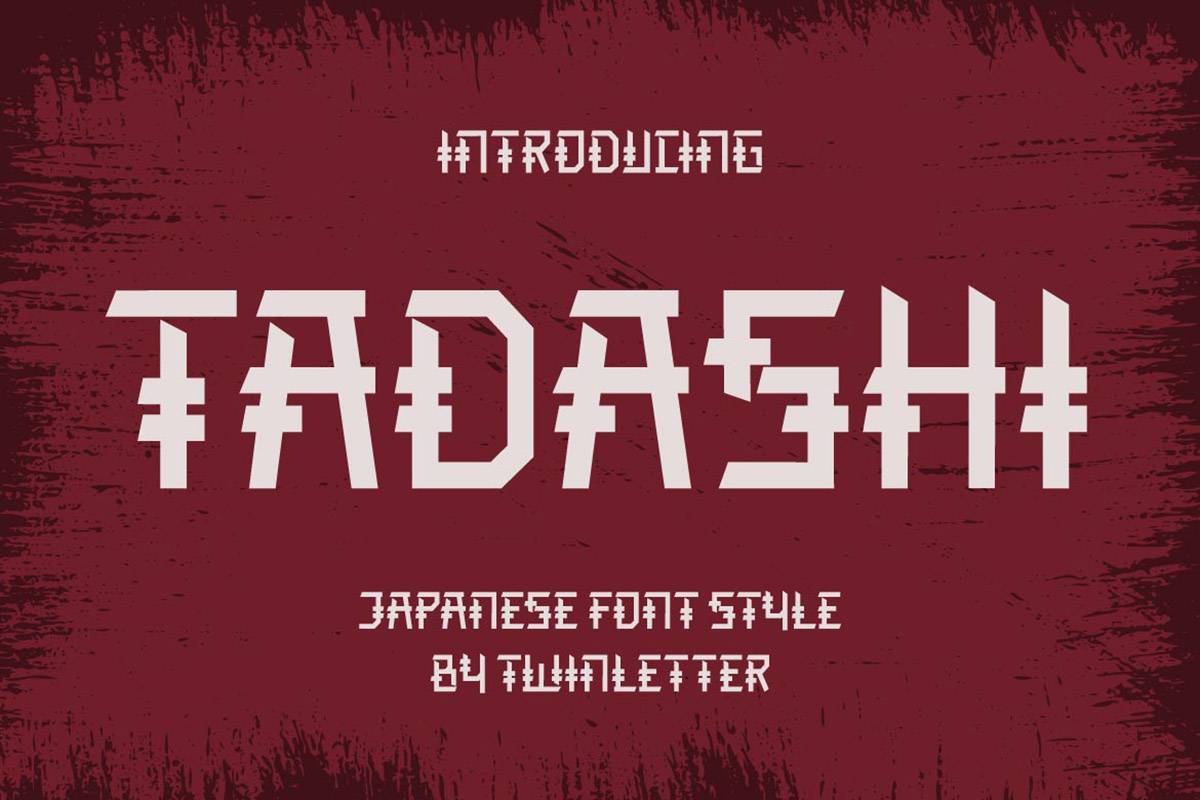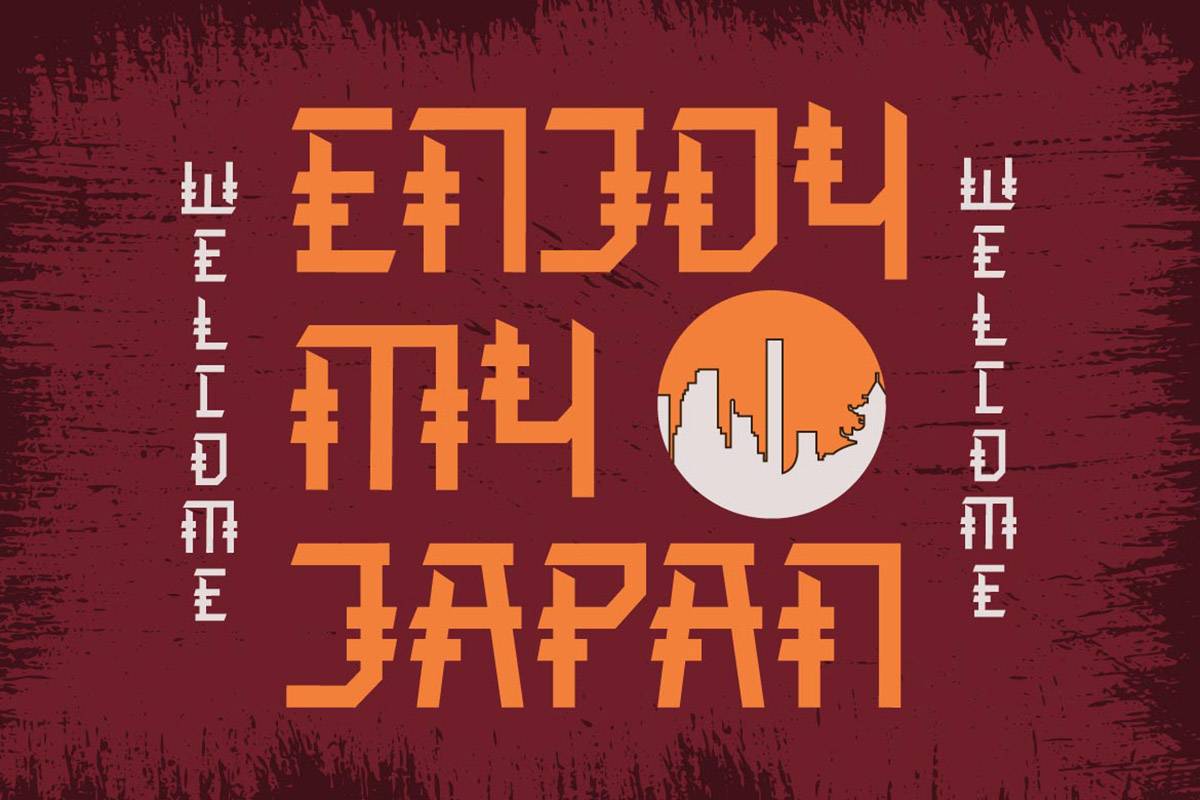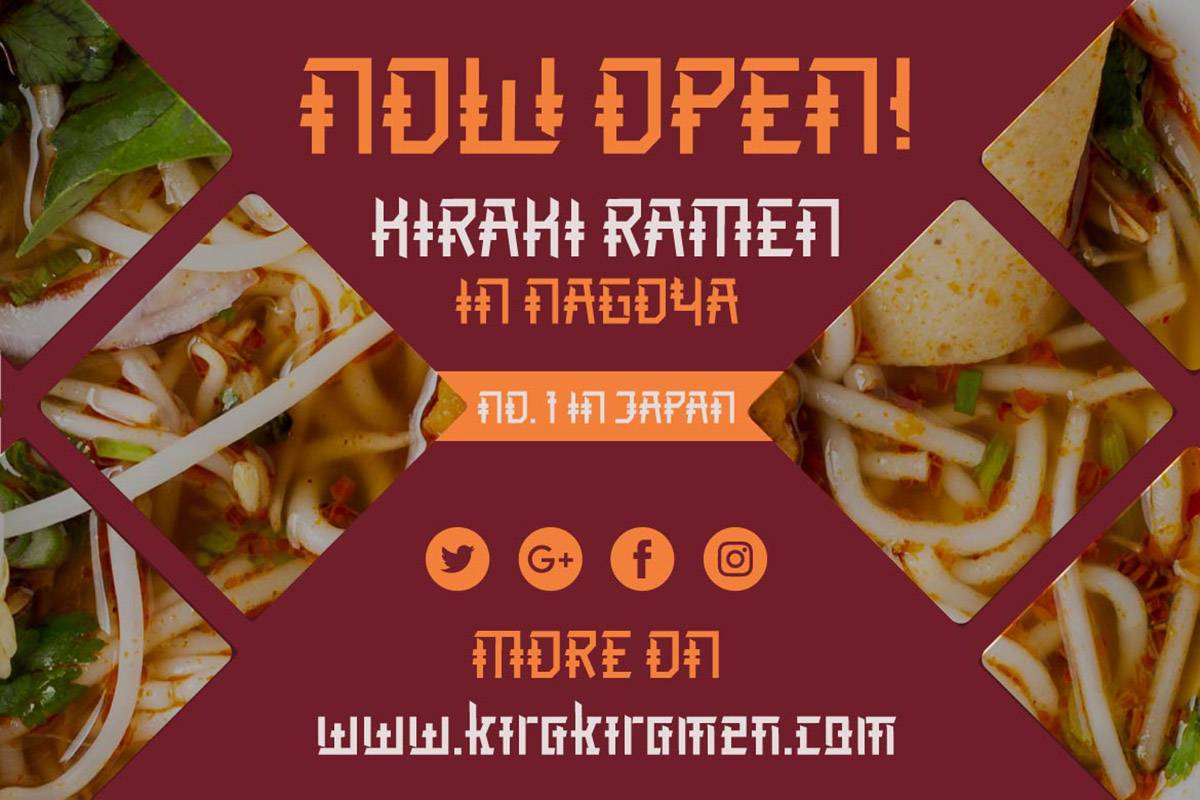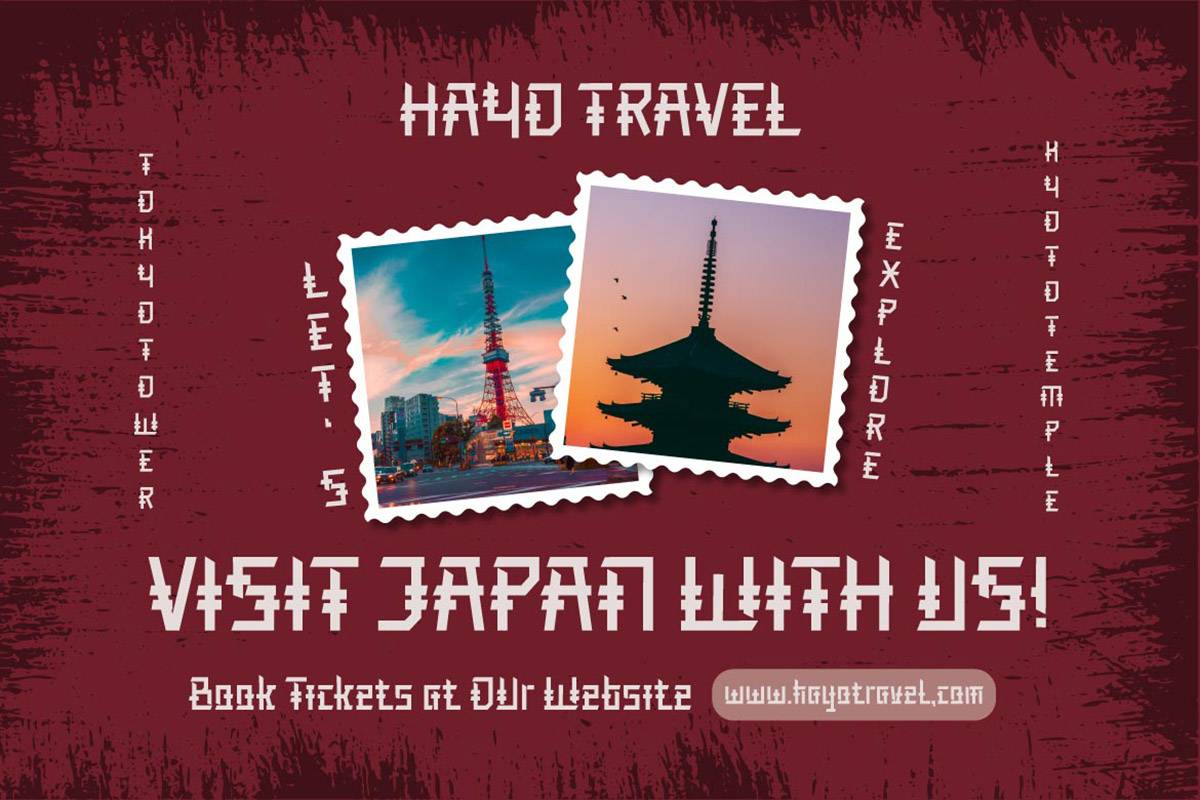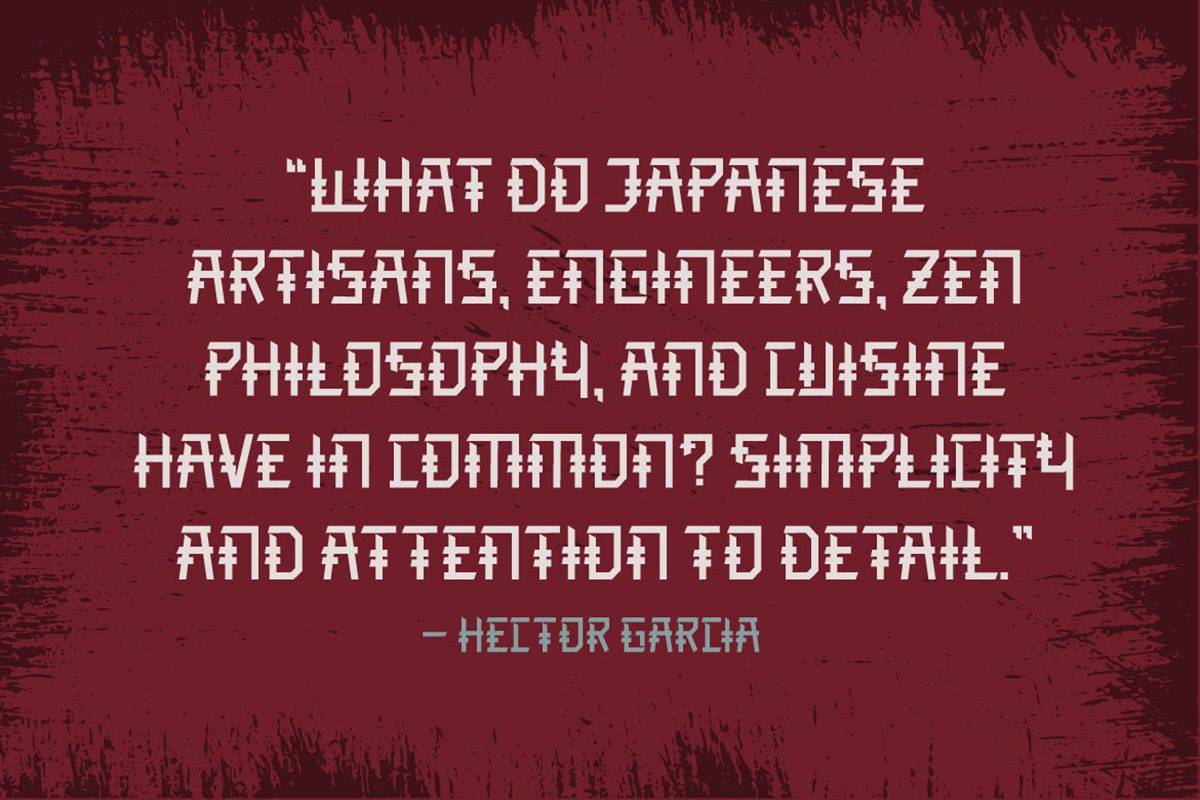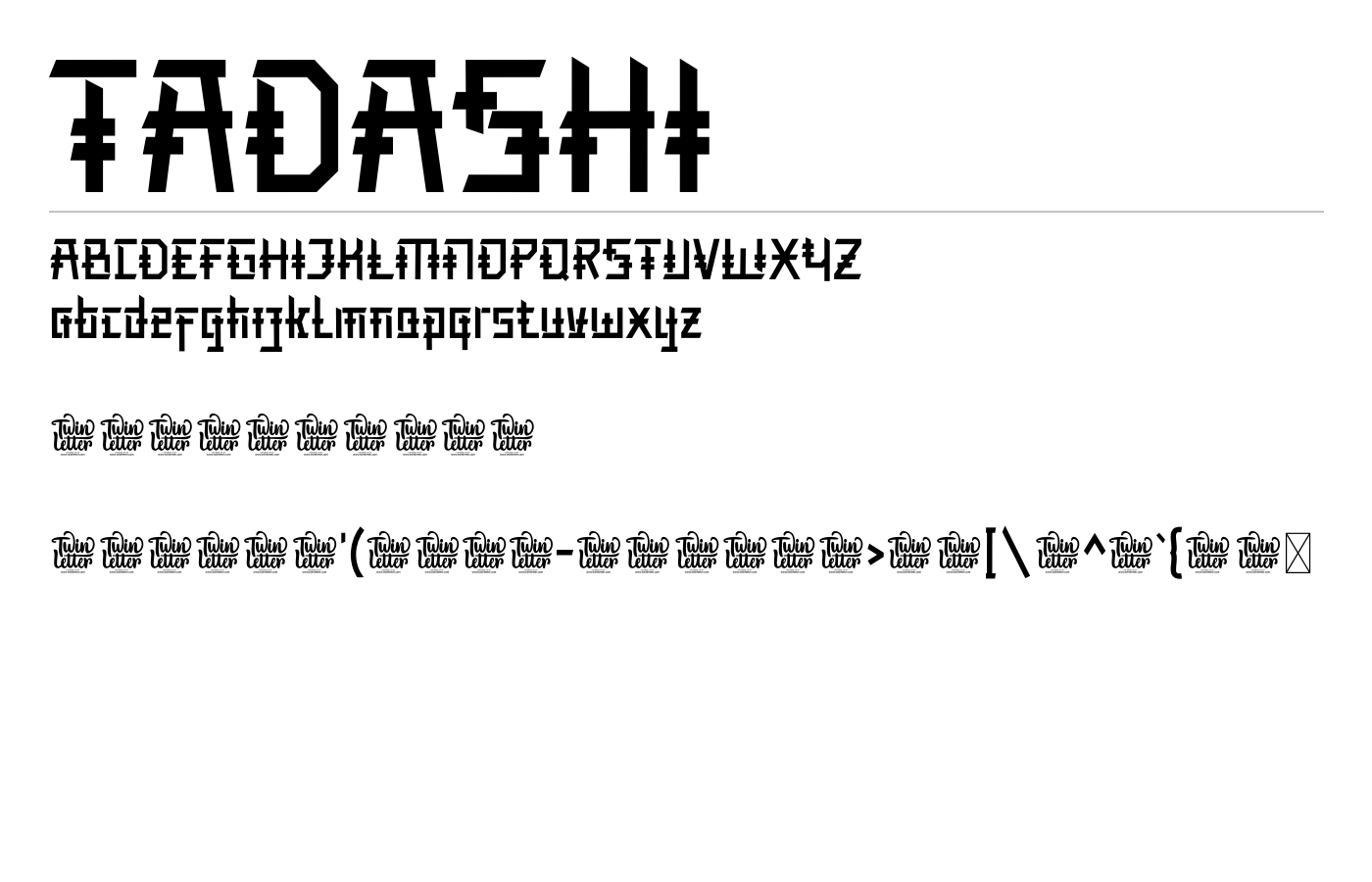
Tadashi is a bold, condensed sans serif font with a strong geometric and industrial feel, marked by sharp angles and a distinct, fragmented style that gives it a modern, edgy appearance. Its uppercase and lowercase letters feature unique, almost mechanical detailing, making it ideal for striking headlines, logos, and designs that demand an attention-grabbing, futuristic vibe. This font works well in creative branding and poster design where boldness and originality are key.
Tadashi Font
About Tadashi Font